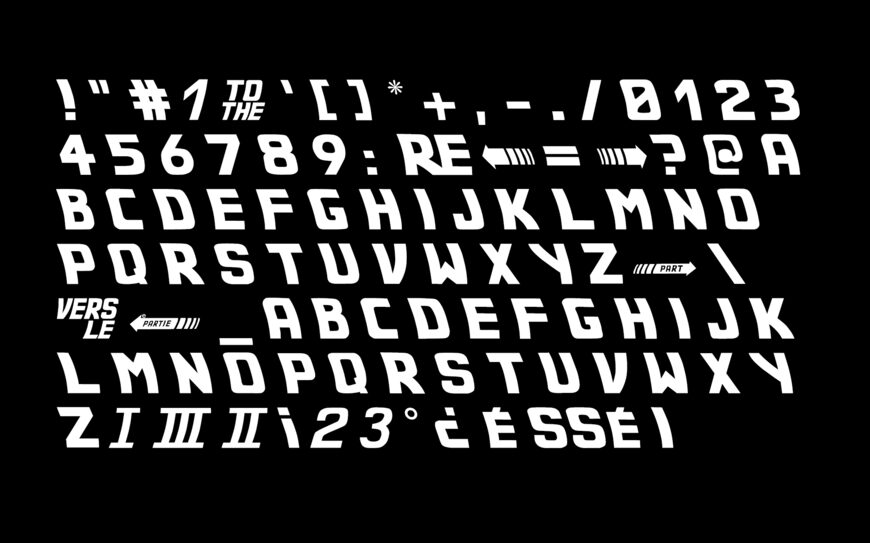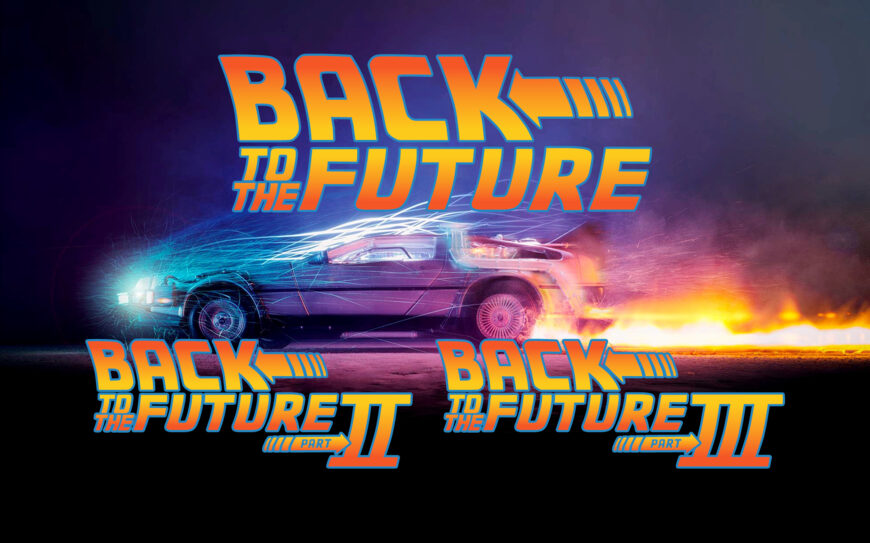
Back to the Future 2002 Font
Back to the Future 2002 is a bold techno display font inspired by the iconic retro-futuristic typography of the Back to the Future movie series.
Designed by Cyril Bourreau, its angular shapes, dynamic proportions, and futuristic details capture the energetic style of the original movie branding. The font is well suited for posters, logos, titles, personal movie-themed designs, gaming graphics, and other sci-fi projects.